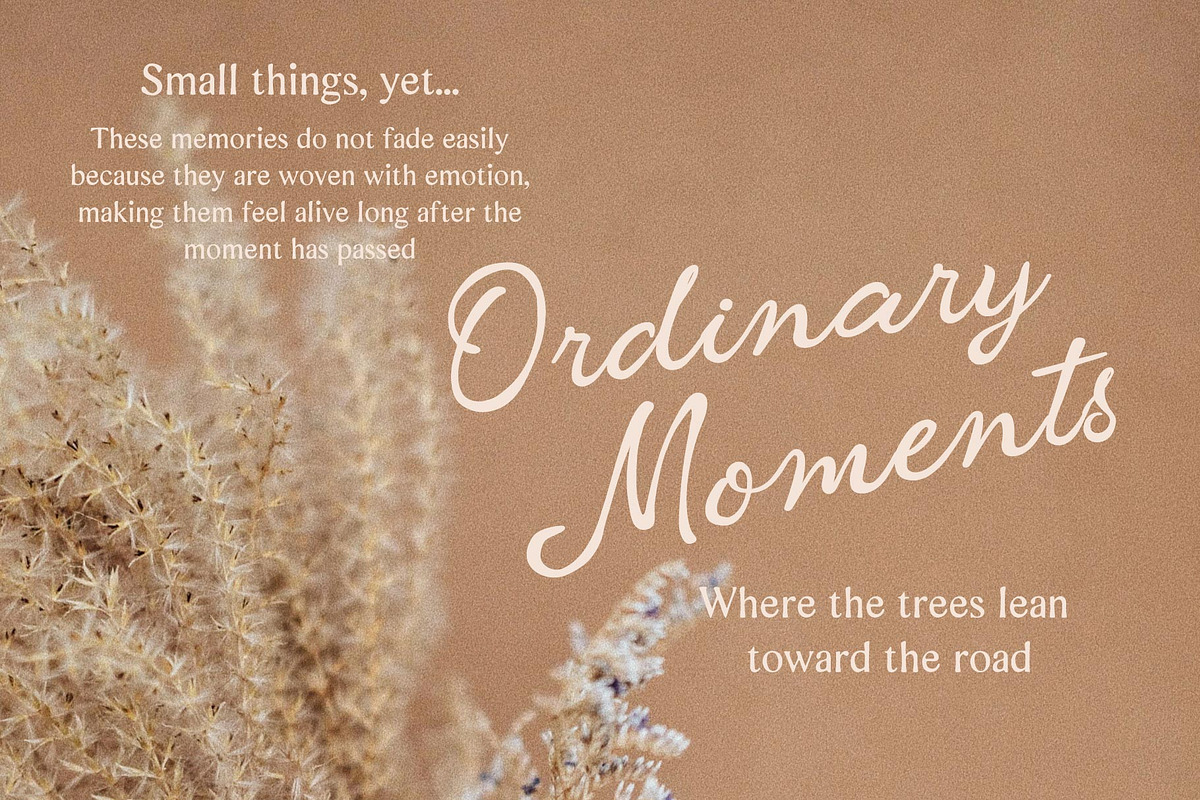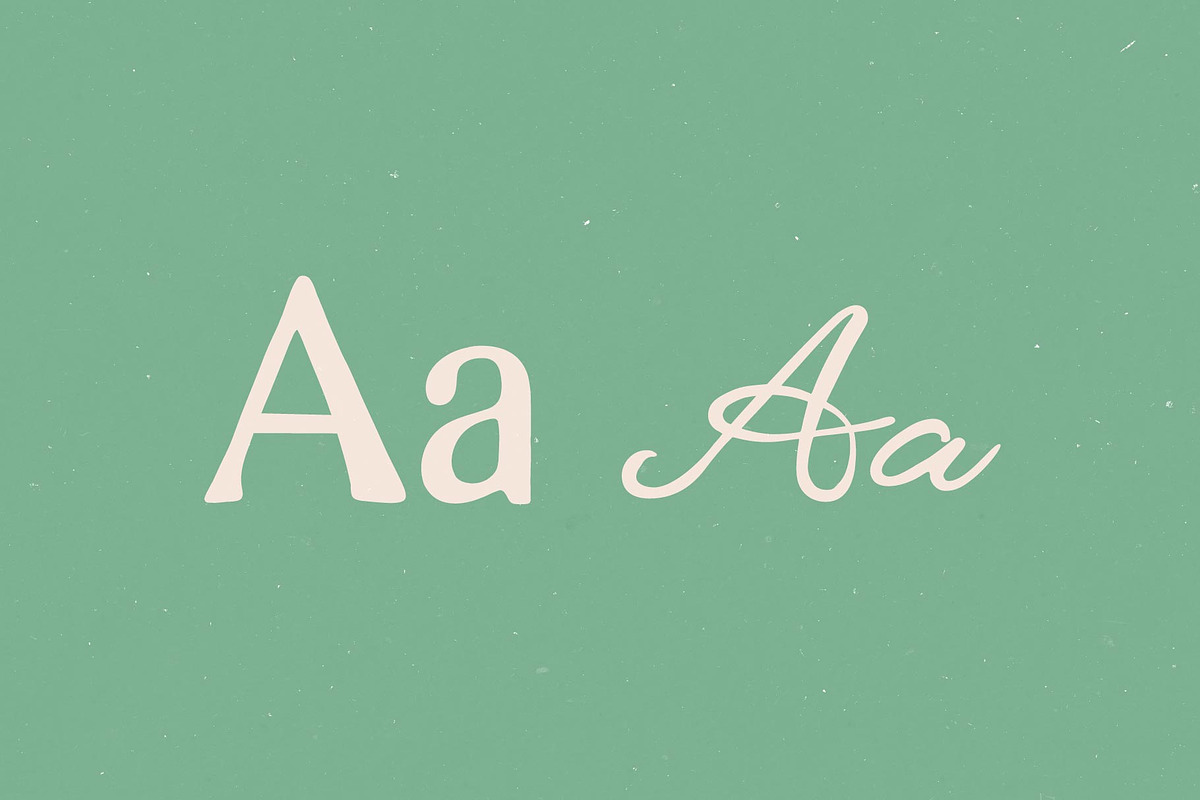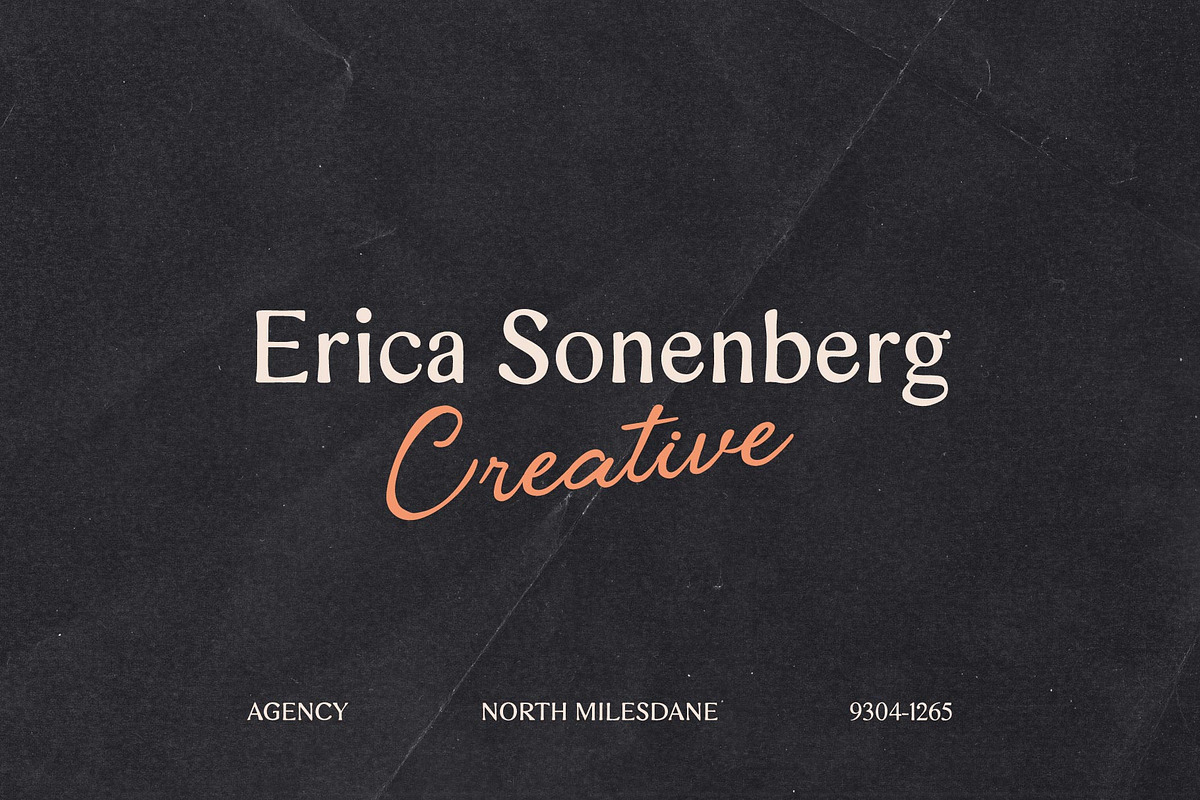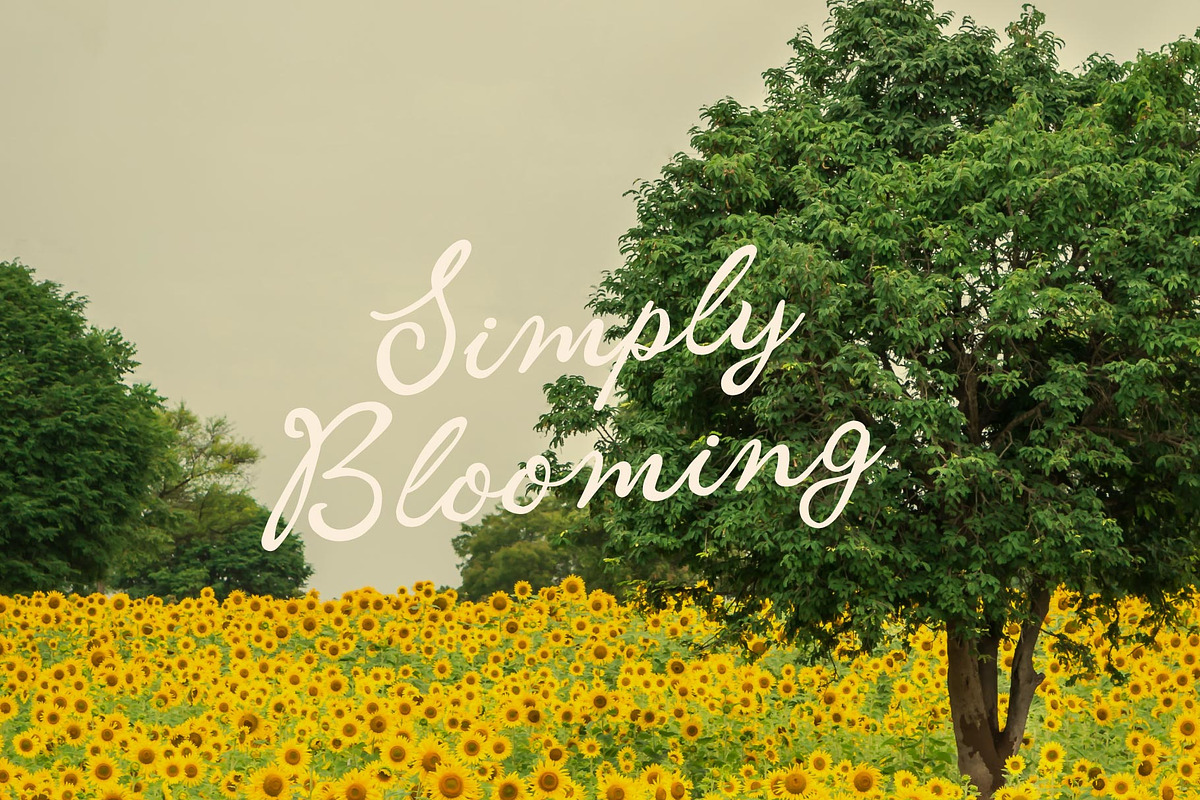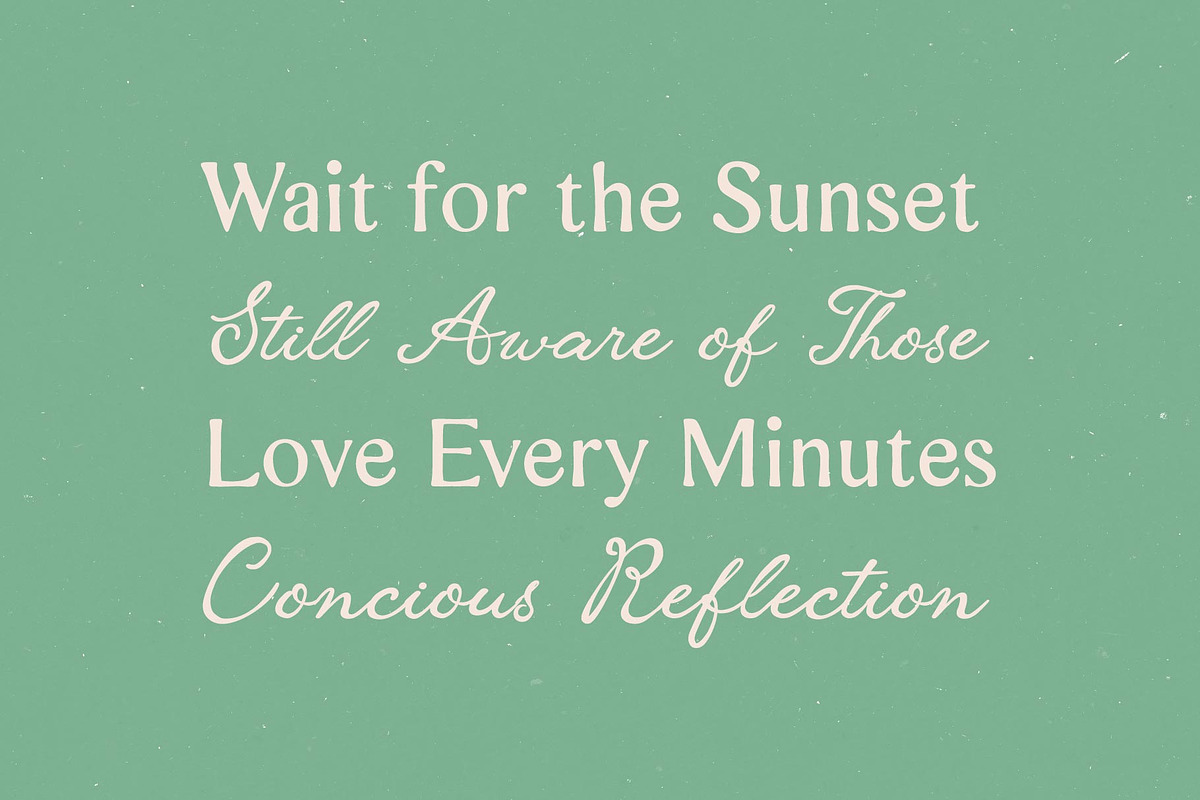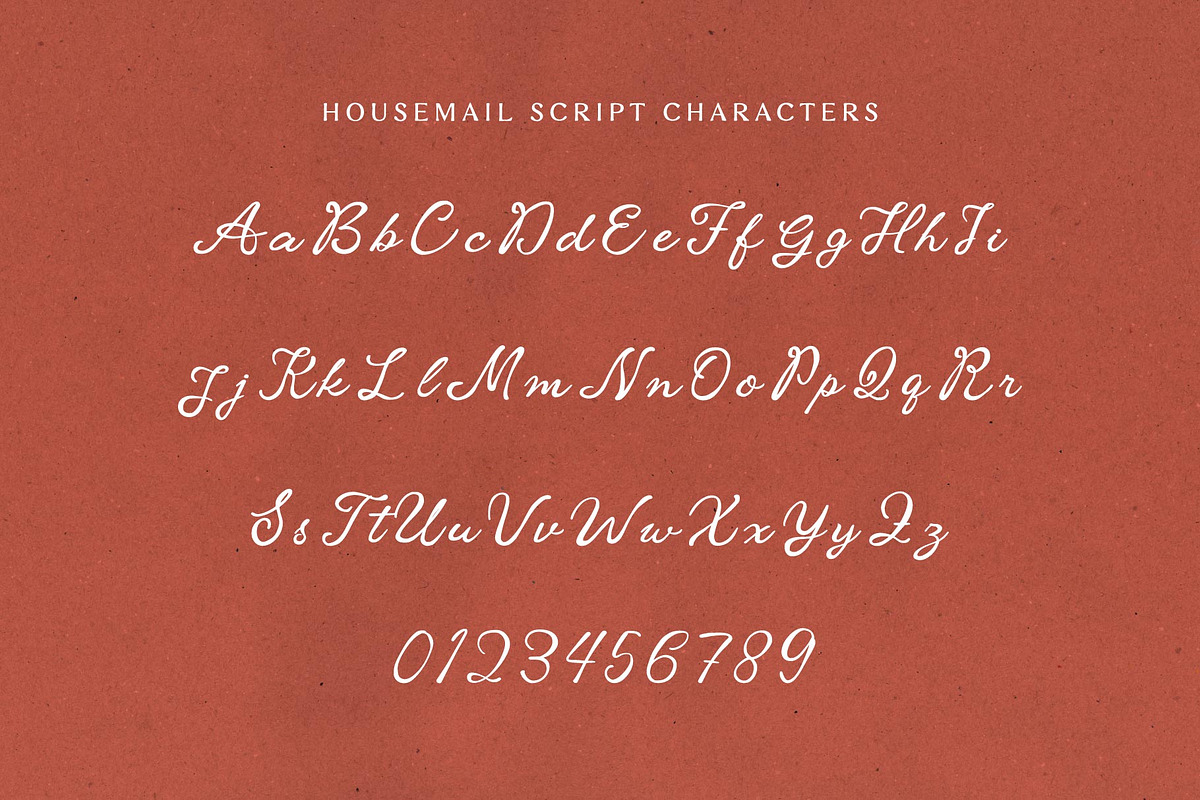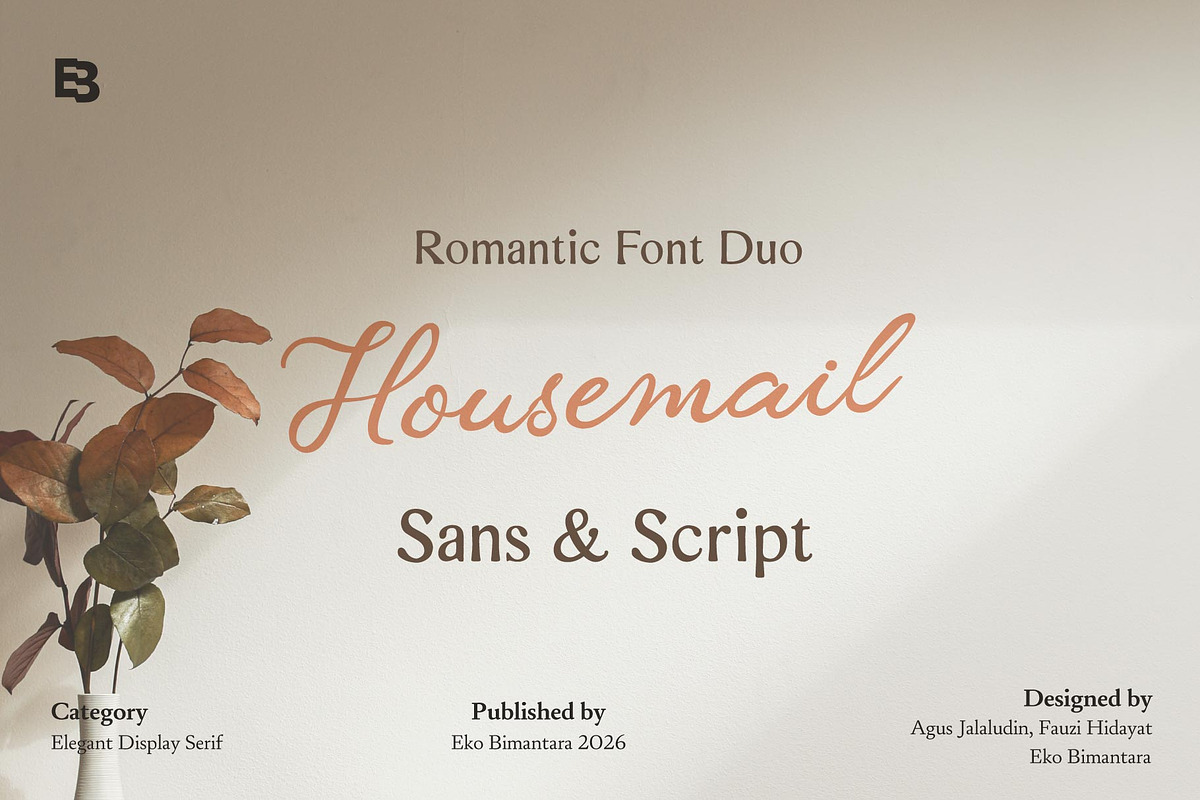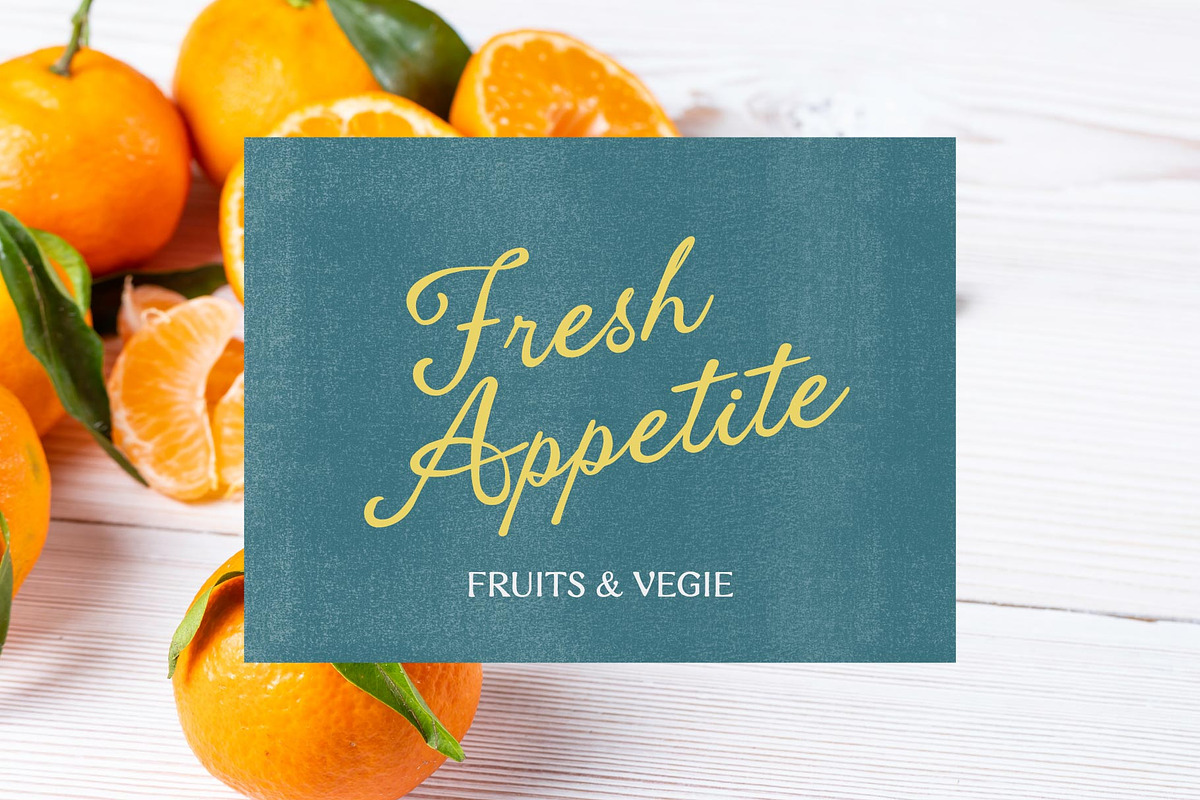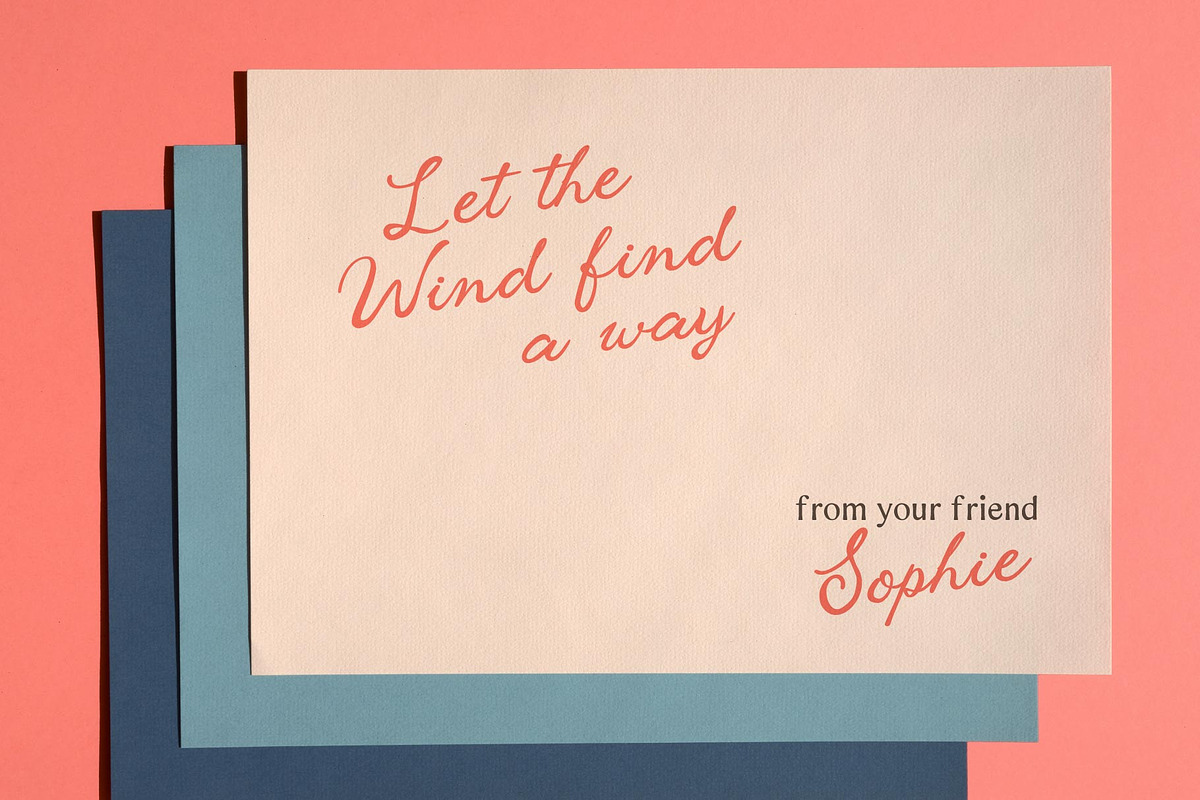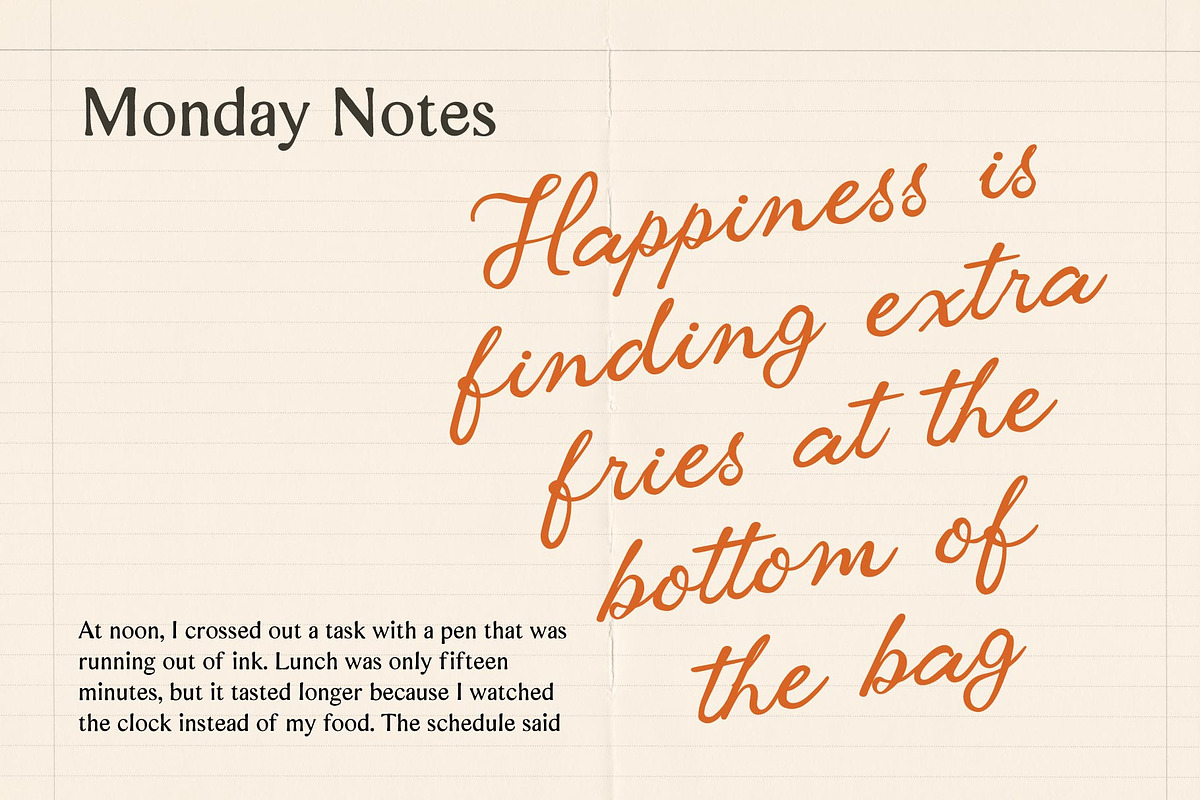
Housemail; Romantic Script and Sans
Housemail is a romantic script font blended with a rough handwritten sans font duo, creating a warm and personal feel with a touch of vintage charm. Its natural strokes and slightly imperfect texture give the impression of heartfelt letters and nostalgic notes, making it perfect for romantic and vintage-themed designs. Designed to be both expressive and readable, Housemail works beautifully for branding, websites, packaging, quotes, and creative projects that seek an emotional and human touch. This font brings warmth, intimacy, and timeless appeal to every composition.